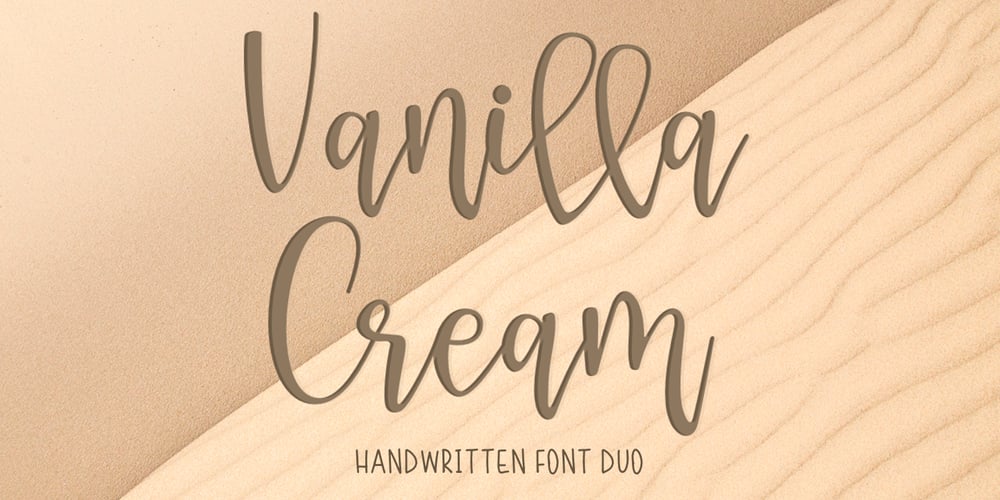
Vanilla Cream
Vanilla Cream font
Vanilla Cream Font Family was designed by Pavel Larin and published by Larin Type Co. Vanilla Cream contains 2 styles and family package options. Vanilla Cream this beautiful handwritten font duo, is light and elegant and light, they go well together and complement each other, it looks amazing on wedding invitations, thank you cards, quotes, greeting cards, logos, t-shirts, business cards and any other design that needs a handwritten touch. This font is easy to use, has OpenType features, and supports PUA encoding.